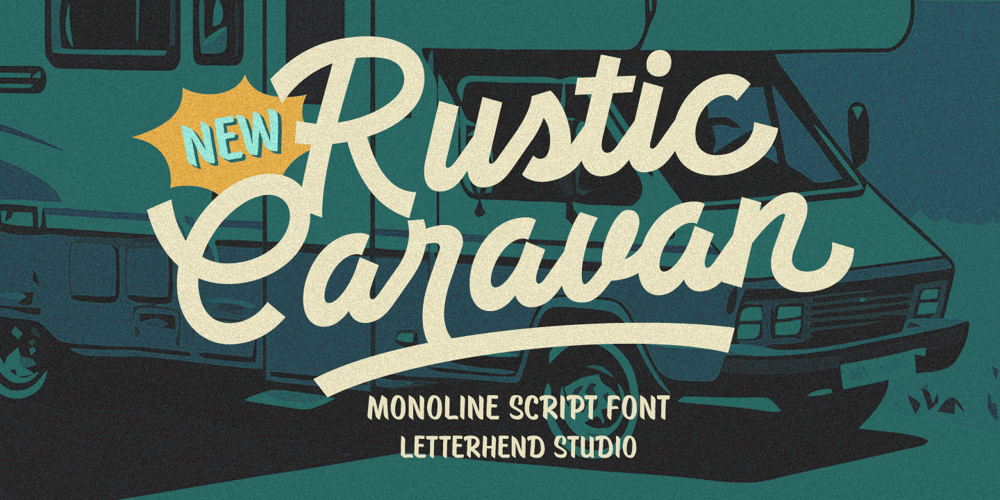
Rustic Caravan Font Family was designed by Hendry Juanda and published by Letterhend. Rustic Caravan contains 1 styles and family package options. Rustic Caravan is a casual monoline script display font. This font perfectly made to be applied especially in logo, and the other various formal forms such as invitations, labels, logos, magazines, books, greeting / wedding cards, packaging, fashion, make up, stationery, novels, labels or any type of advertising purpose.Features : Uppercase & lowercase Numbers and punctuation Alternates Character Multilingual support PUA encoded